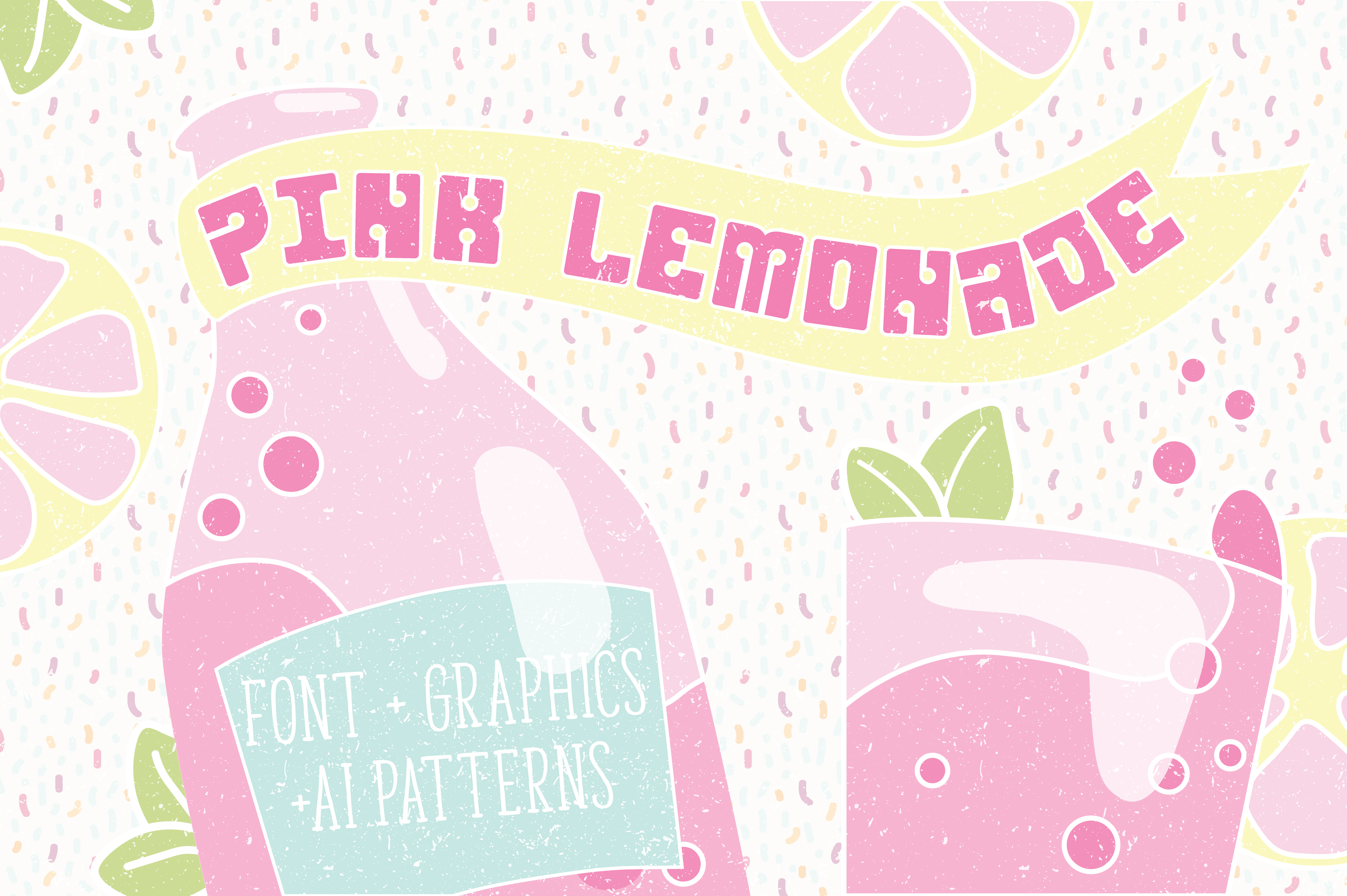
Pink Lemonade - retro display font
Pink Lemonade is a fun retro block font inspired from the 50's-70's Pop Art culture with roots in the Art Deco.
Perfect for the upcoming Summer parties!